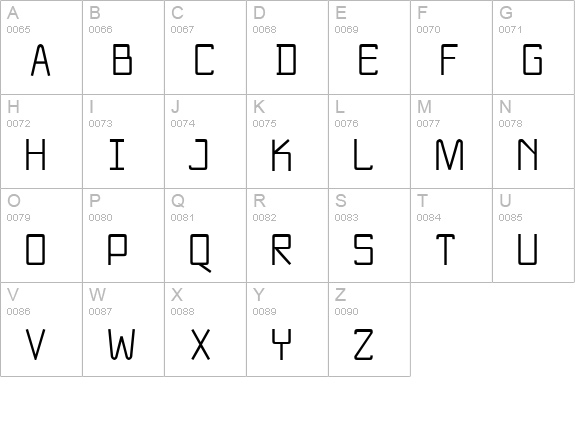
NewNerdish Plain Font Details
NewNerdish Plain font is a modern and sleek typeface that combines a clean, minimalist design with a touch of sophistication. Its crisp lines and sharp angles give it a contemporary look that is perfect for a wide range of design projects. Whether you are creating a website, designing a logo, or working on a print publication, NewNerdish Plain font will bring a fresh and stylish vibe to your work. This versatile font is ideal for both headings and body text, making it a great choice for projects that require a cohesive and polished appearance. Its simple yet elegant design will ensure that your content stands out while maintaining a professional and refined look. Best of all, NewNerdish Plain font is available for free download at FontsMarket.com. This means that you can easily access this high-quality typeface without any cost, making it a valuable addition to your font collection. So why wait? Download NewNerdish Plain font today and elevate your design projects with its contemporary style and versatility.